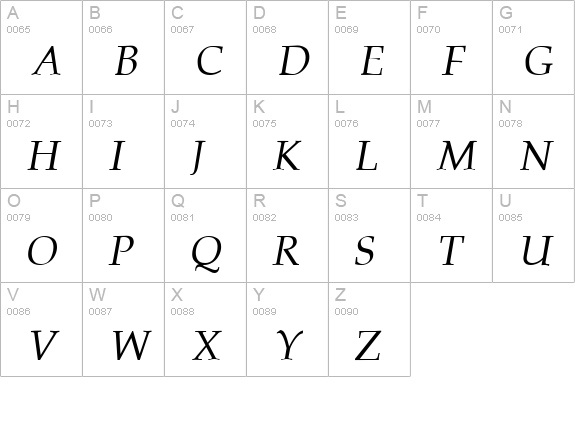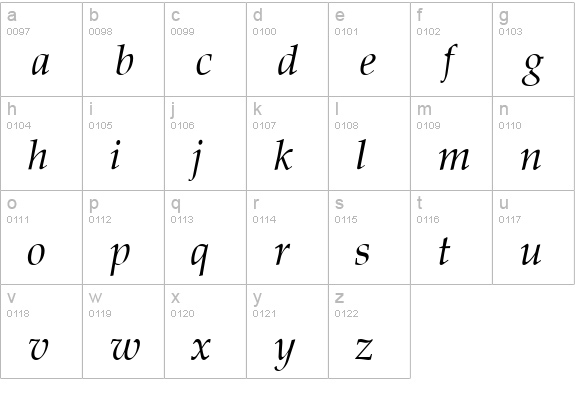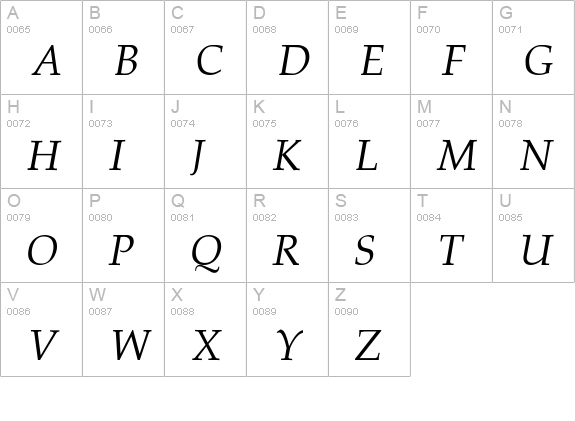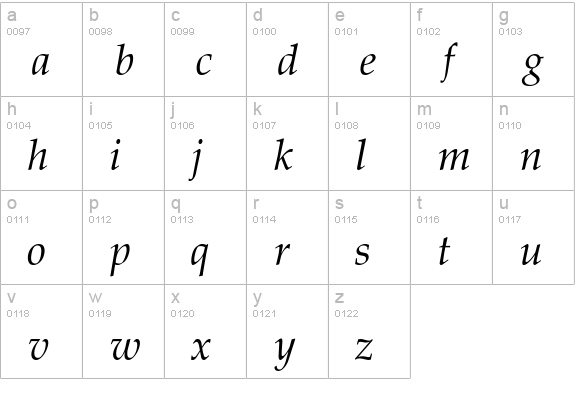
Palladia Italic is a distinctive, italic variant in the Palladia typeface family \xE2\x80\x94 well suited to design and typography projects.
Introducing Palladia Italic, a strikingly elegant font that adds a touch of sophistication to any design project. With its graceful curves and delicate strokes, this font exudes a sense of refined beauty that captivates the eye. Palladia Italic is perfect for creating stunning logos, headlines, and invitations that demand attention. Its unique blend of classic and contemporary elements makes it versatile and adaptable to various design styles, from modern to vintage. What sets Palladia Italic apart is not only its aesthetic appeal but also its accessibility. This exceptional font is available for free download at FontsMarket.com, allowing designers, creatives, and typographers to seamlessly incorporate it into their work without any financial barriers. Whether you're designing a wedding invitation, a branding project, or a magazine layout, Palladia Italic will elevate your designs and leave a lasting impression. Its timeless appeal and effortlessly stylish character make it a must-have for designers who value both quality and accessibility. Download Palladia Italic today and experience the freedom to create stunning visuals that stand out from the crowd.